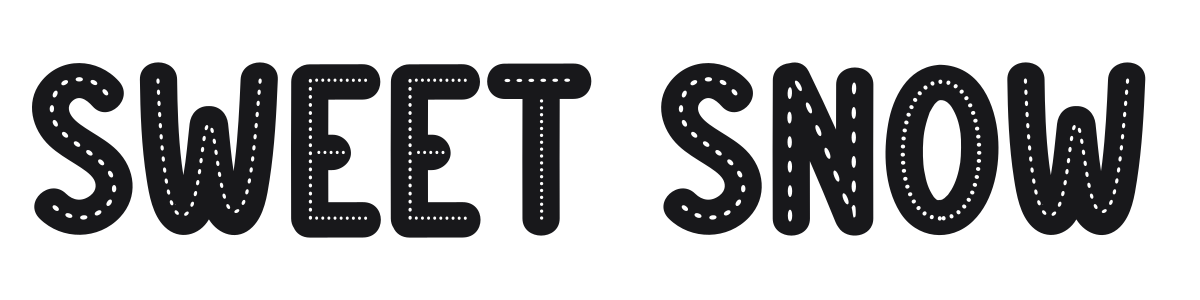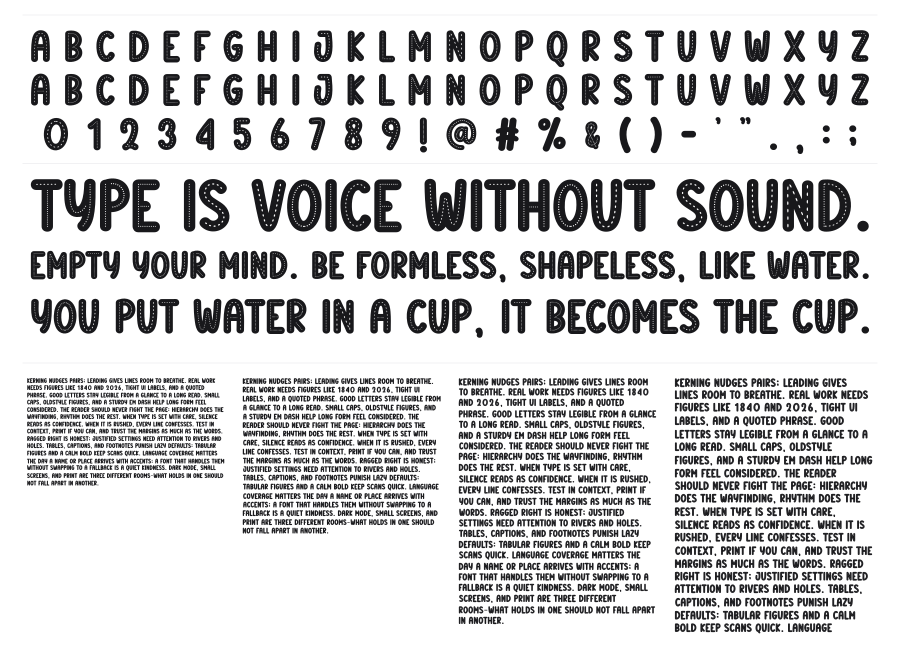
Sweet Snow
Sweet SnowLicense is a bold rounded display font with a charming stitched-line detail running through each character, mimicking embroidery or sewn fabric. The chunky, inflated forms and dotted inner strokes give it a cozy, handcrafted personality that reads instantly as festive or seasonal. It works best large, on invitations, packaging, and social media graphics where the texture detail can be appreciated.